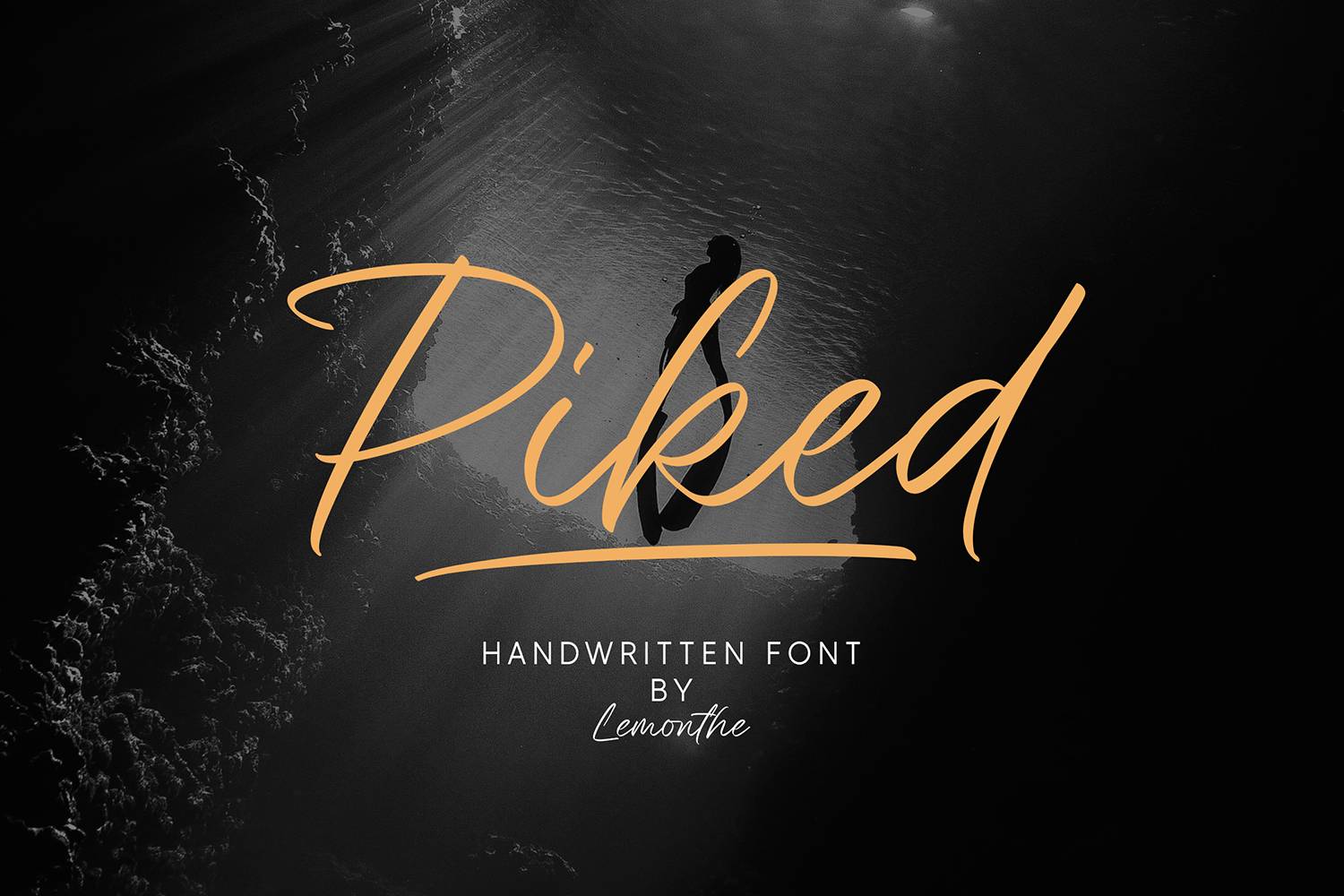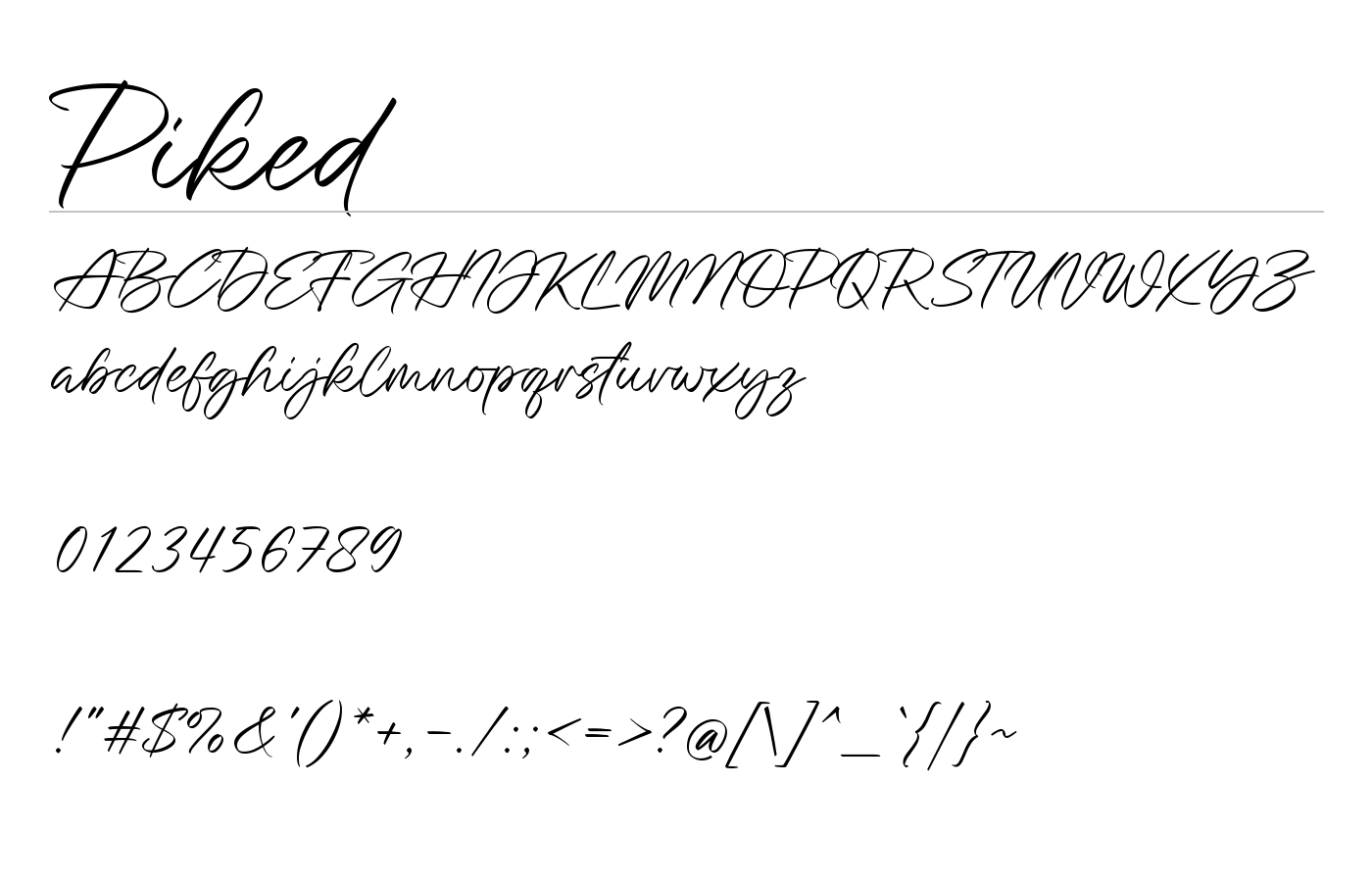
Piked is an elegant, light script font with a modern, handwritten feel. Its flowing, narrow letterforms and smooth, calligraphic strokes make it perfect for adding a personal, sophisticated touch to invitations, branding, and editorial designs. This font works beautifully where a delicate, refined style is desired without sacrificing readability.
Piked Font
About Piked Font
| Font family | Piked Font |
| Designer | Dwi Ahidian |